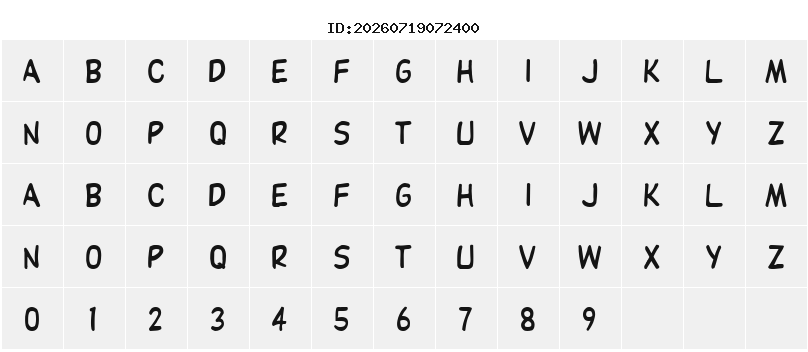
• Font Name: ComixHeavy
• Full Font Name: ComixHeavy Regular
About ComixHeavy.ttf
ComixHeavy.ttf is a modern, elegant sans-serif font designed for ultimate readability and visual harmony. Perfect for branding, headlines, web design, and print materials.